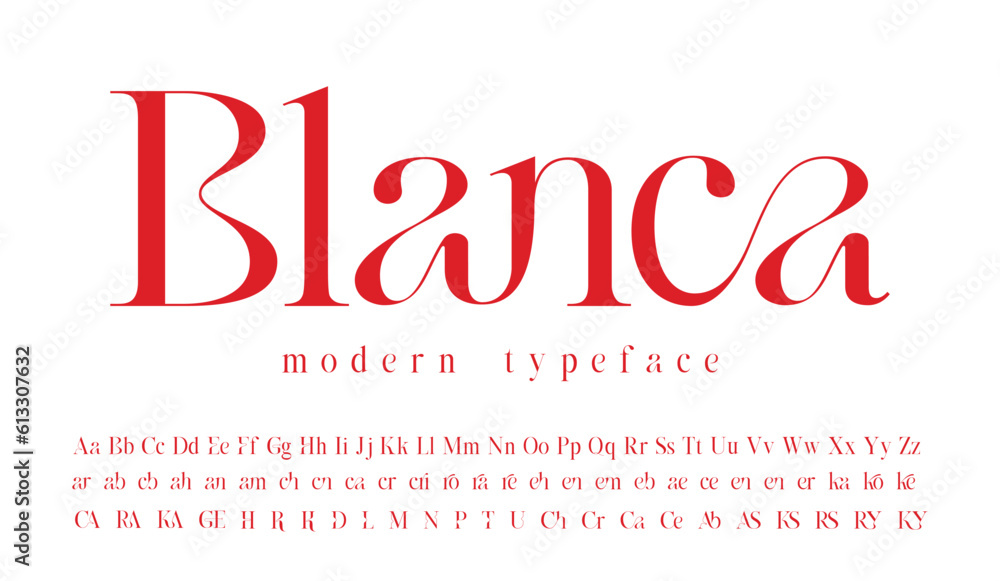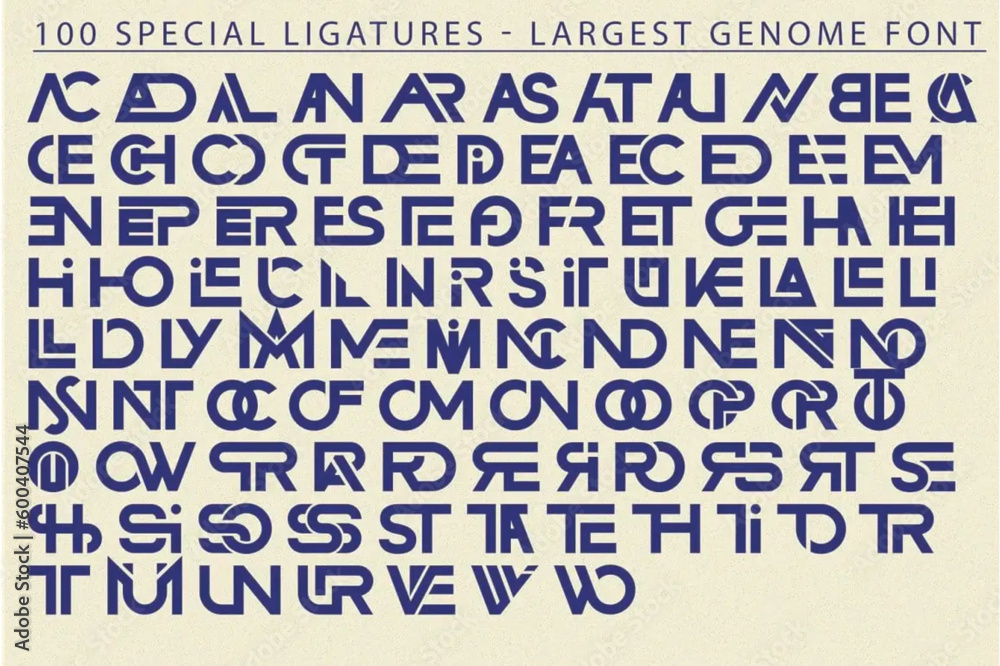
Ligatures Of Typeface . A ligature occurs when two or more letters are joined to form a single glyph, a practice dating back to the earliest days of writing. A ligature is a special character in a font that combines two or more characters e.g. The different ligature font types. Inspired by hasklig, fira code and others i’ve started adding ligatures to monoid — my own open source coding font. Ligatures combine two or more letters into a single glyph, creating a harmonious connection between characters that may otherwise collide or overlap. Standard ligatures (liga), discretionary ligatures (dlig),. There are many types of ligature fonts and we’ve explored some examples already, but did you know all. The word “ligature” comes from the. Originally, ligatures were practical solutions to spatial and aesthetic challenges in manuscript writing and later in typesetting. There are three types of ligatures: Ligatures have been used in typography for ages and some ligatures are now. Standard ligatures improve legibility and harmony in typography.
There are many types of ligature fonts and we’ve explored some examples already, but did you know all. The word “ligature” comes from the. A ligature occurs when two or more letters are joined to form a single glyph, a practice dating back to the earliest days of writing. The different ligature font types. A ligature is a special character in a font that combines two or more characters e.g. Standard ligatures improve legibility and harmony in typography. Originally, ligatures were practical solutions to spatial and aesthetic challenges in manuscript writing and later in typesetting. There are three types of ligatures: Standard ligatures (liga), discretionary ligatures (dlig),. Inspired by hasklig, fira code and others i’ve started adding ligatures to monoid — my own open source coding font.
Ligatures Of Typeface Ligatures combine two or more letters into a single glyph, creating a harmonious connection between characters that may otherwise collide or overlap. There are many types of ligature fonts and we’ve explored some examples already, but did you know all. The word “ligature” comes from the. Ligatures have been used in typography for ages and some ligatures are now. A ligature occurs when two or more letters are joined to form a single glyph, a practice dating back to the earliest days of writing. Inspired by hasklig, fira code and others i’ve started adding ligatures to monoid — my own open source coding font. Ligatures combine two or more letters into a single glyph, creating a harmonious connection between characters that may otherwise collide or overlap. The different ligature font types. There are three types of ligatures: Standard ligatures (liga), discretionary ligatures (dlig),. A ligature is a special character in a font that combines two or more characters e.g. Standard ligatures improve legibility and harmony in typography. Originally, ligatures were practical solutions to spatial and aesthetic challenges in manuscript writing and later in typesetting.
Enable Font Ligatures in VS Code World of Zero Ligatures Of Typeface The word “ligature” comes from the. A ligature is a special character in a font that combines two or more characters e.g. The different ligature font types. Originally, ligatures were practical solutions to spatial and aesthetic challenges in manuscript writing and later in typesetting. Standard ligatures (liga), discretionary ligatures (dlig),. Inspired by hasklig, fira code and others i’ve started adding. Ligatures Of Typeface.
A Modern Serif Font with a big set of ligatures and alternates, this Ligatures Of Typeface The different ligature font types. Inspired by hasklig, fira code and others i’ve started adding ligatures to monoid — my own open source coding font. Ligatures combine two or more letters into a single glyph, creating a harmonious connection between characters that may otherwise collide or overlap. Standard ligatures improve legibility and harmony in typography. Standard ligatures (liga), discretionary ligatures. Ligatures Of Typeface.
Ligature font stock vector. Illustration of script, retro 182993581 Ligatures Of Typeface Ligatures combine two or more letters into a single glyph, creating a harmonious connection between characters that may otherwise collide or overlap. There are three types of ligatures: Ligatures have been used in typography for ages and some ligatures are now. Originally, ligatures were practical solutions to spatial and aesthetic challenges in manuscript writing and later in typesetting. A ligature. Ligatures Of Typeface.
What are Ligatures? (And How to Use Them in Your Typography) Ligatures Of Typeface A ligature is a special character in a font that combines two or more characters e.g. Standard ligatures improve legibility and harmony in typography. Ligatures combine two or more letters into a single glyph, creating a harmonious connection between characters that may otherwise collide or overlap. Originally, ligatures were practical solutions to spatial and aesthetic challenges in manuscript writing and. Ligatures Of Typeface.
Aotten Ligatures Serif Font Design Cuts Ligatures Of Typeface There are many types of ligature fonts and we’ve explored some examples already, but did you know all. Originally, ligatures were practical solutions to spatial and aesthetic challenges in manuscript writing and later in typesetting. Standard ligatures (liga), discretionary ligatures (dlig),. There are three types of ligatures: Inspired by hasklig, fira code and others i’ve started adding ligatures to monoid. Ligatures Of Typeface.
Standard Ligatures Feature Liga Local Fonts Ligatures Of Typeface There are many types of ligature fonts and we’ve explored some examples already, but did you know all. Standard ligatures (liga), discretionary ligatures (dlig),. Originally, ligatures were practical solutions to spatial and aesthetic challenges in manuscript writing and later in typesetting. A ligature occurs when two or more letters are joined to form a single glyph, a practice dating back. Ligatures Of Typeface.
How To Access Ligatures and Alternates in Script Fonts YouTube Ligatures Of Typeface Ligatures combine two or more letters into a single glyph, creating a harmonious connection between characters that may otherwise collide or overlap. A ligature occurs when two or more letters are joined to form a single glyph, a practice dating back to the earliest days of writing. The word “ligature” comes from the. Originally, ligatures were practical solutions to spatial. Ligatures Of Typeface.
Font Ligatures Text at Heather Ingersoll blog Ligatures Of Typeface There are three types of ligatures: The different ligature font types. Originally, ligatures were practical solutions to spatial and aesthetic challenges in manuscript writing and later in typesetting. Standard ligatures (liga), discretionary ligatures (dlig),. Ligatures combine two or more letters into a single glyph, creating a harmonious connection between characters that may otherwise collide or overlap. A ligature is a. Ligatures Of Typeface.